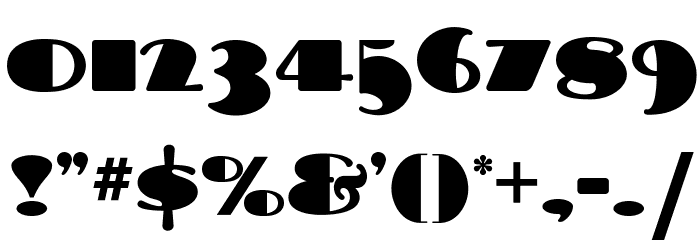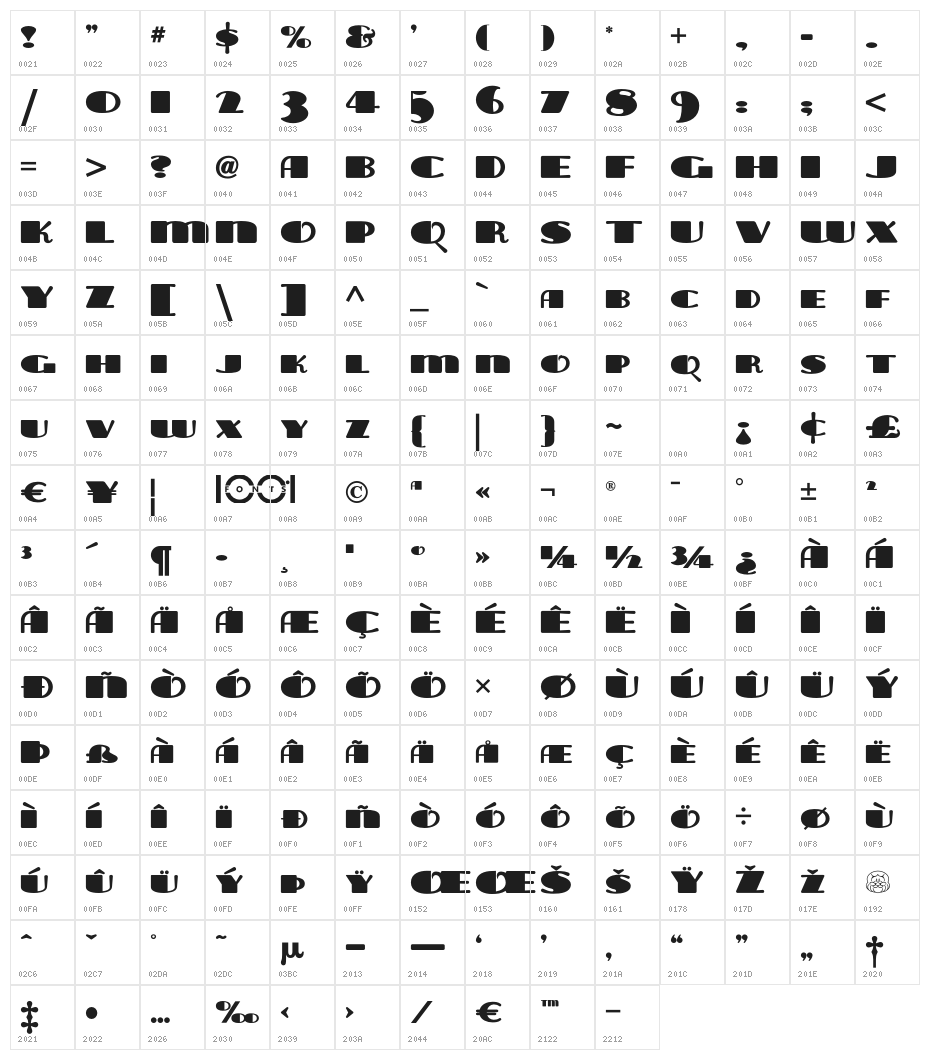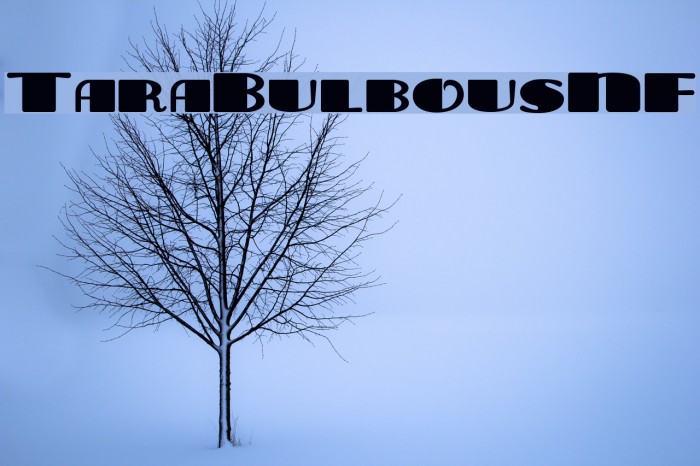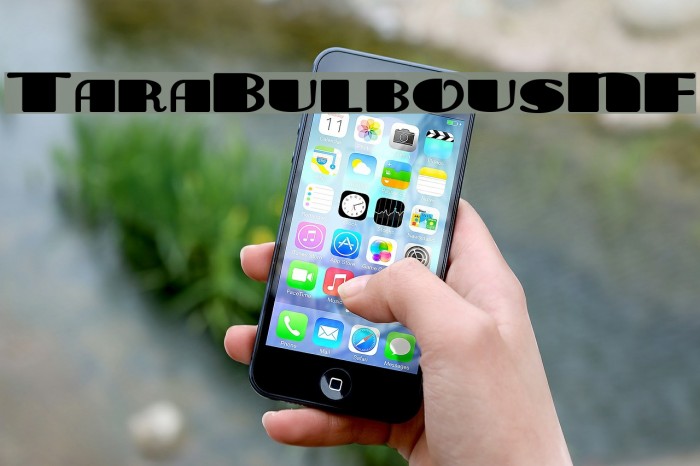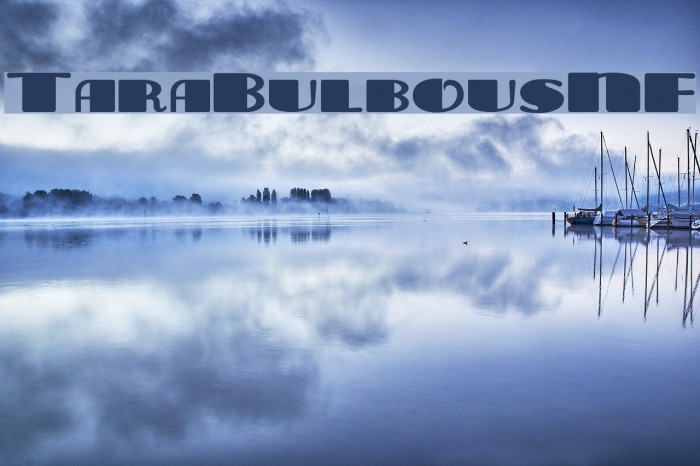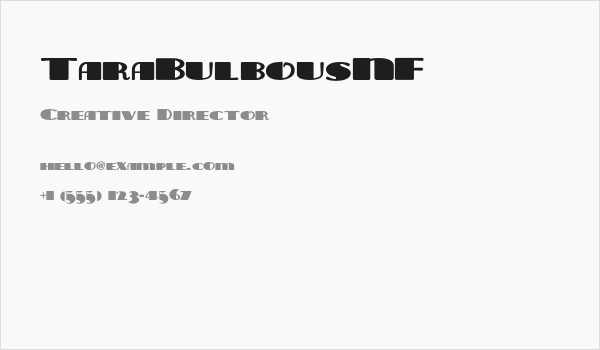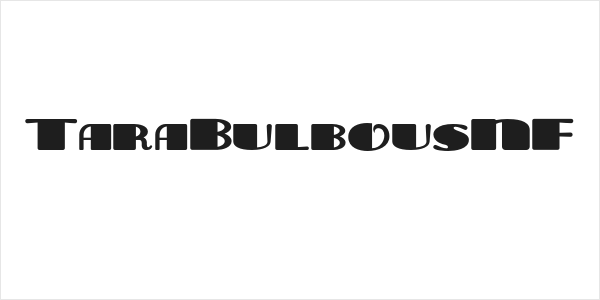
TaraBulbousNF Font
TaraBulbousNF Description
This font features a bold and playful design with exaggerated curves and rounded forms. The letters are wide and have a strong presence, making them ideal for eye-catching displays. The uppercase letters are particularly striking, with a unique blend of geometric and organic shapes. The lowercase letters maintain the same boldness, ensuring consistency across text. Numbers and special characters follow the same design principles, offering a cohesive look. The font's style is reminiscent of retro and vintage aesthetics, yet it maintains a modern appeal through its clean lines and balanced proportions.
| Overall Style | Retro, Modern |
| Proposed Projects | Ideal for branding, posters, and any project needing a bold, eye-catching typeface. |